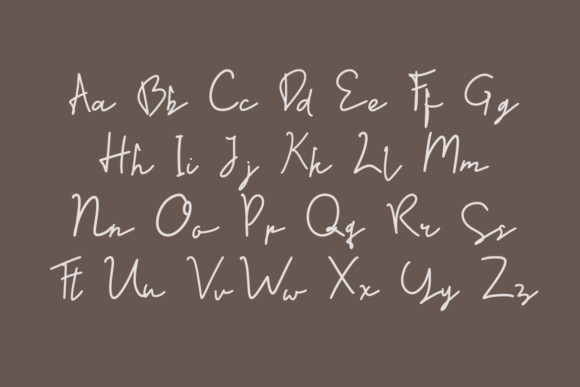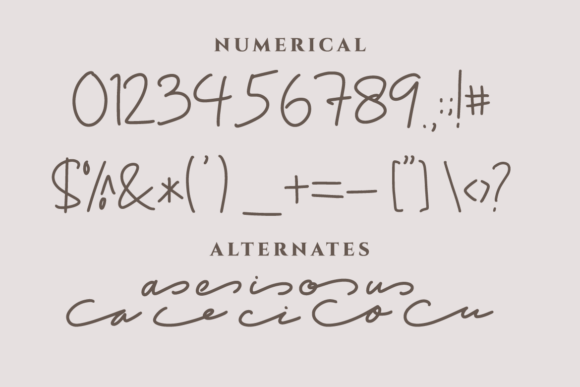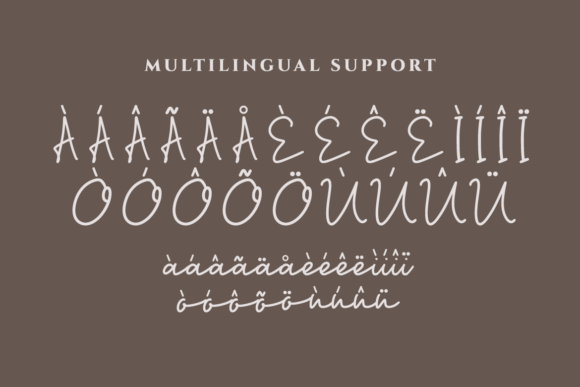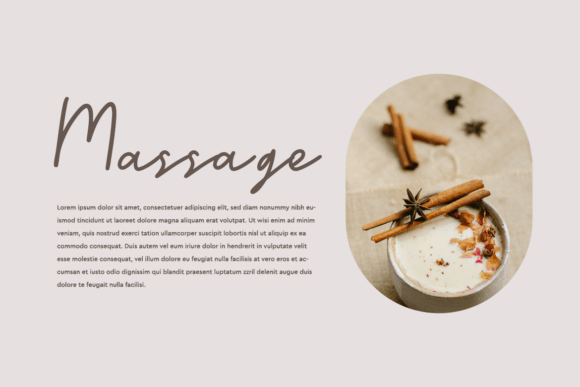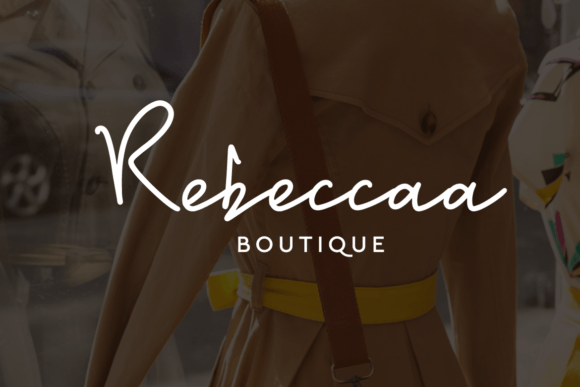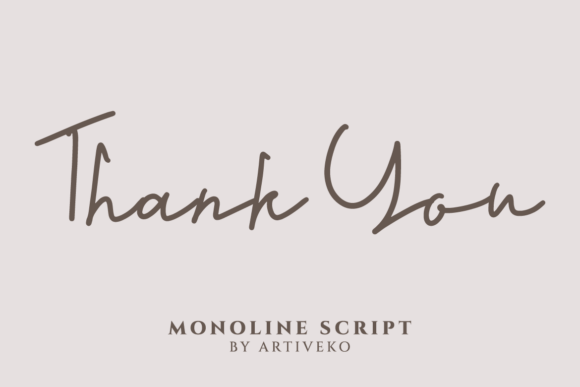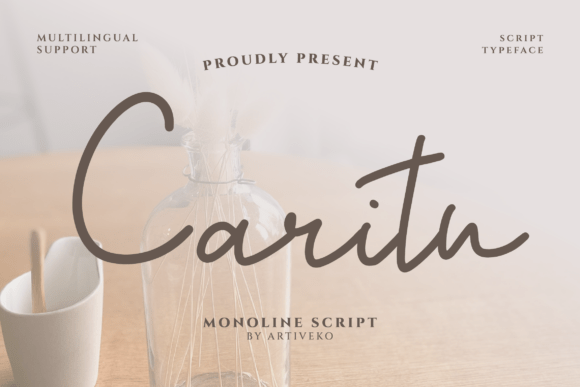
Introducing Caritu Font: The Perfect Blend of Elegance and Personality
Are you looking for a font that can add a touch of warmth and authenticity to your creative projects? Look no further than Caritu Font, a charming script font that blends casual elegance with a personal touch. Designed to mimic natural handwriting, Caritu is the perfect choice for designers and crafters who want to add a unique and human touch to their work.
What Makes Caritu Font So Special?
Caritu Font is a beautifully crafted script font that features flowing curves, smooth ligatures, and subtle strokes. Its natural and effortless look makes it perfect for use in a variety of creative projects, from branding and invitations to logos, packaging, and social media posts. Whether you’re looking to create a warm and inviting atmosphere or a more elegant and sophisticated look, Caritu Font is the perfect choice.
Key Features of Caritu Font
- Natural Handwriting Style: Caritu Font is designed to mimic natural handwriting, giving your creative projects a warm and authentic touch.
- Flowing Curves and Ligatures: The font features smooth and flowing curves, as well as ligatures that add a touch of elegance and sophistication.
- Subtle Strokes: The subtle strokes in Caritu Font add a touch of warmth and personality to your text, making it perfect for use in creative projects.
- Versatile: Caritu Font is perfect for use in a variety of creative projects, from branding and invitations to logos, packaging, and social media posts.
Uses for Caritu Font
Caritu Font is a versatile font that can be used in a variety of creative projects, including:
- Branding: Use Caritu Font to create a unique and memorable brand identity that reflects your personality and style.
- Invitations: Add a touch of elegance and sophistication to your invitations with Caritu Font.
- Logos: Use Caritu Font to create a logo that is both elegant and memorable.
- Packaging: Add a touch of warmth and authenticity to your packaging with Caritu Font.
- Social Media Posts: Use Caritu Font to create social media posts that are both engaging and visually appealing.
Why Choose Caritu Font?
There are many reasons why you should choose Caritu Font for your creative projects. Here are just a few:
- Unique and Memorable: Caritu Font is a unique and memorable font that will help your creative projects stand out from the crowd.
- Easy to Read: Despite its elegant and sophisticated look, Caritu Font is easy to read and understand.
- Versatile: Caritu Font can be used in a variety of creative projects, making it a great addition to your font library.
- High-Quality: Caritu Font is a high-quality font that is designed to deliver exceptional results.